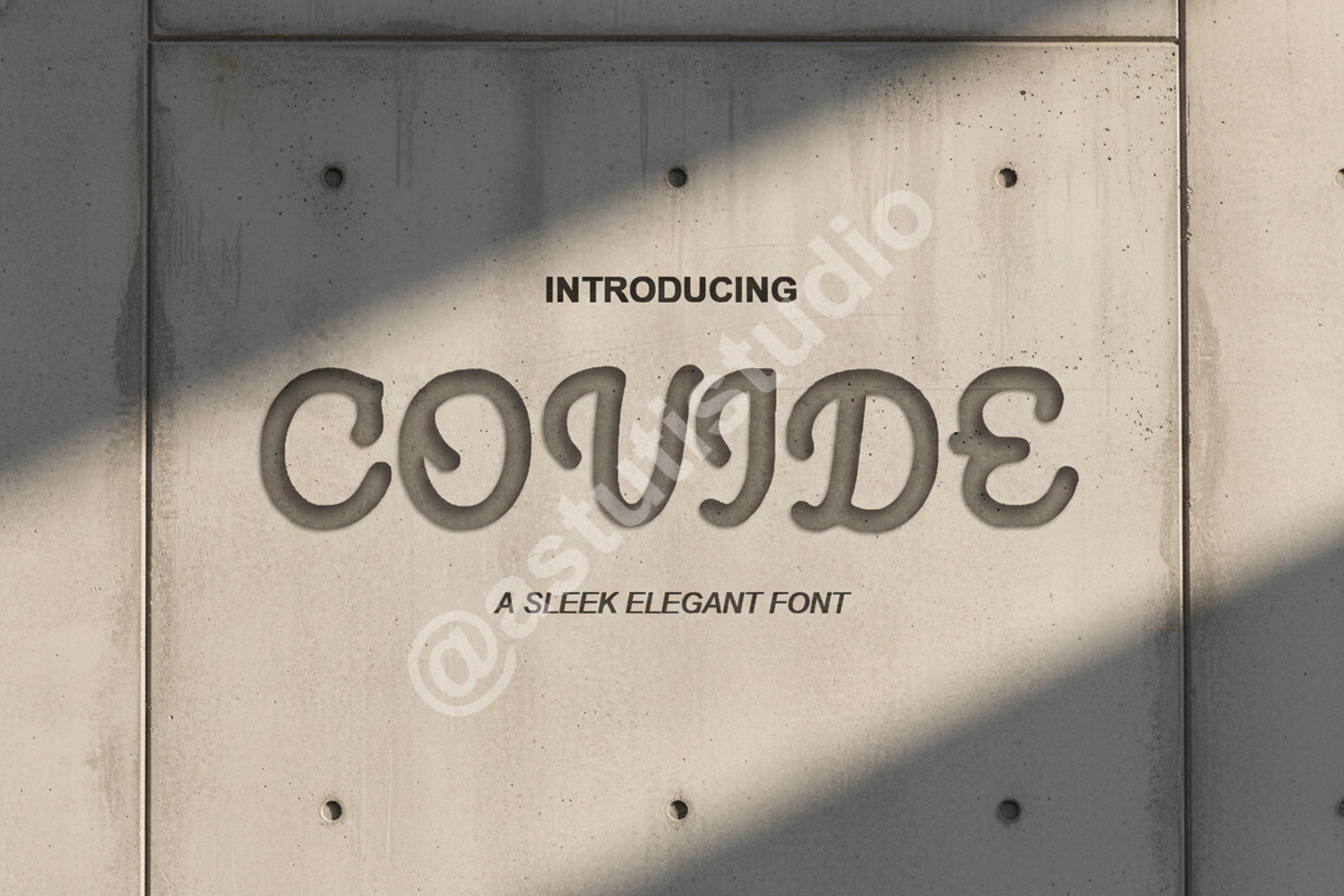
Covide | Elegant Modern Serif Typeface
Covide
Elevate your creative projects with Covide, a premium serif typeface that blends classic elegance with modern sophistication. Designed with high-contrast strokes and refined curves, Covide offers a timeless aesthetic that commands attention while maintaining perfect legibility. Whether you are working on a luxury brand identity or a minimalist editorial layout, this font provides the professional edge your designs deserve.
- Luxury Branding and Logo Design
- High-end Editorial and Magazine Layouts
- Elegant Wedding Invitations and Stationery
- Sophisticated Social Media Graphics
- Product Packaging and Signage
- Website Headers and Professional Presentations